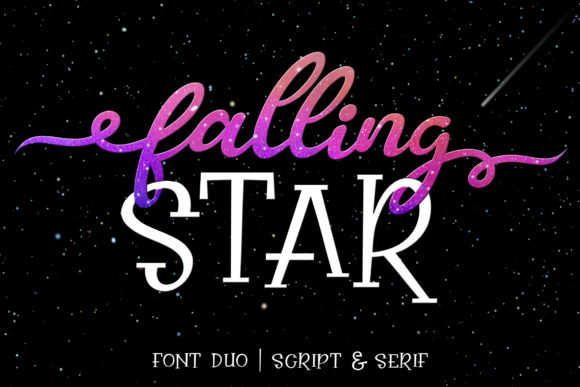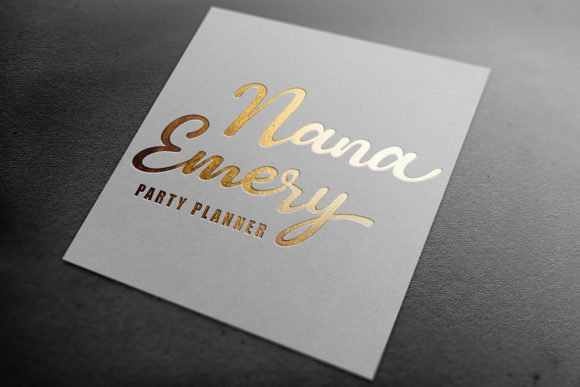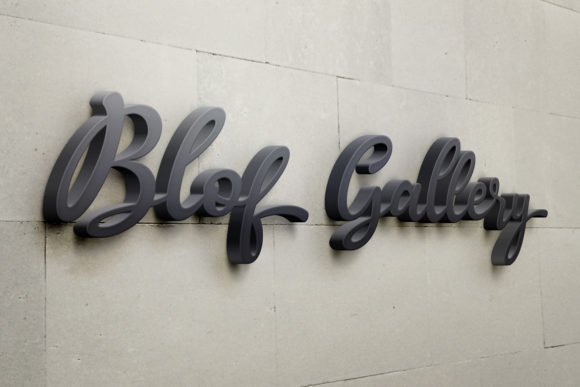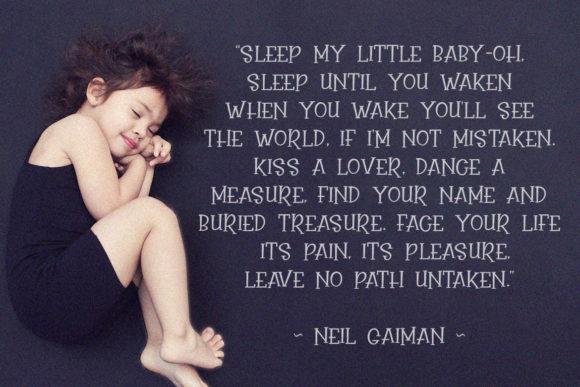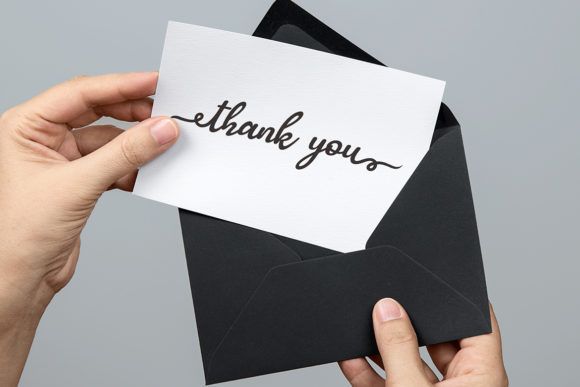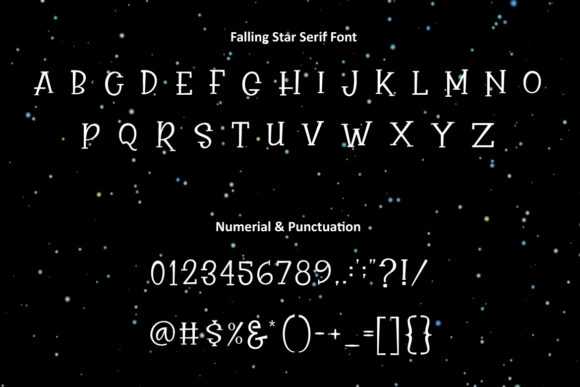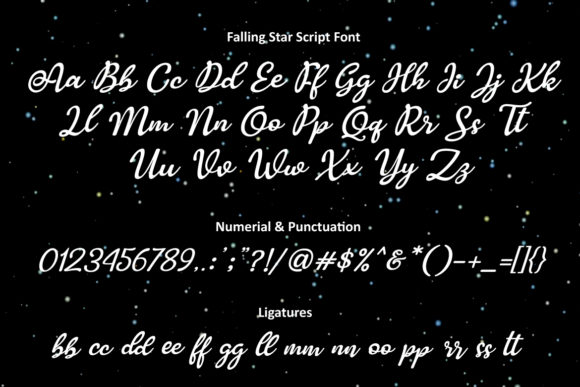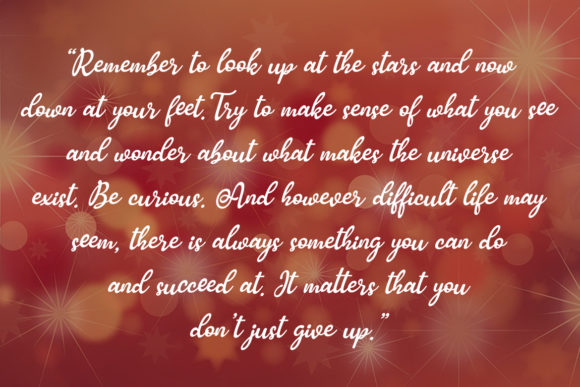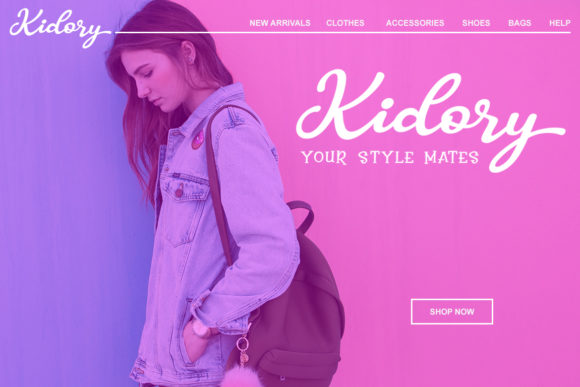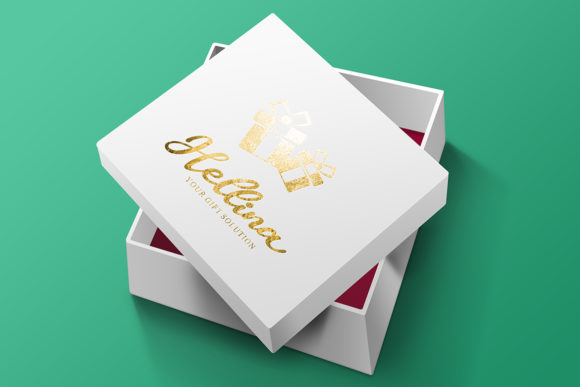
Falling Star Duo Font
About Falling Star Duo Font
The Falling Star is a stunning and comprehensive font duo, perfect for giving your projects a branded but friendly feel. The two included styles can be combined together perfectly but are also perfect as great standalone’s.